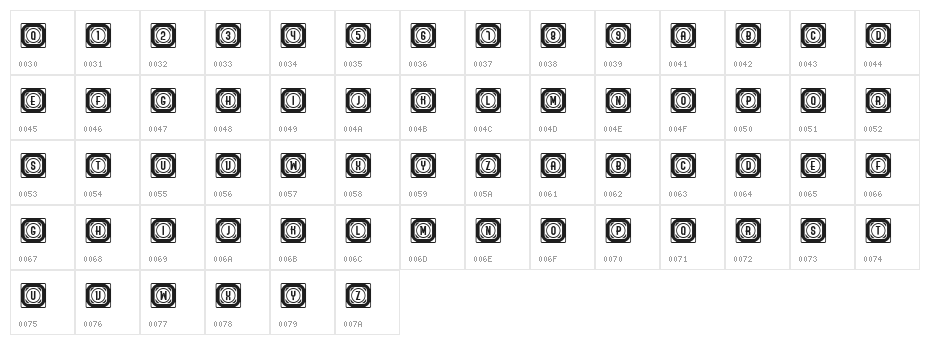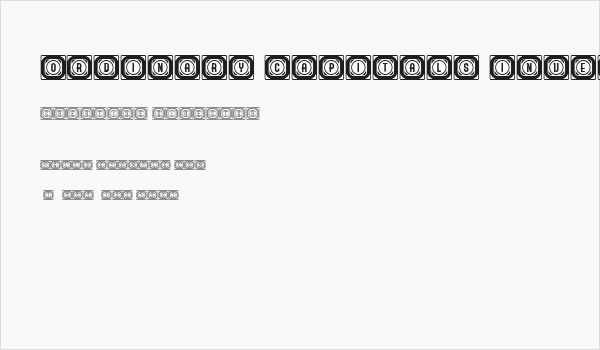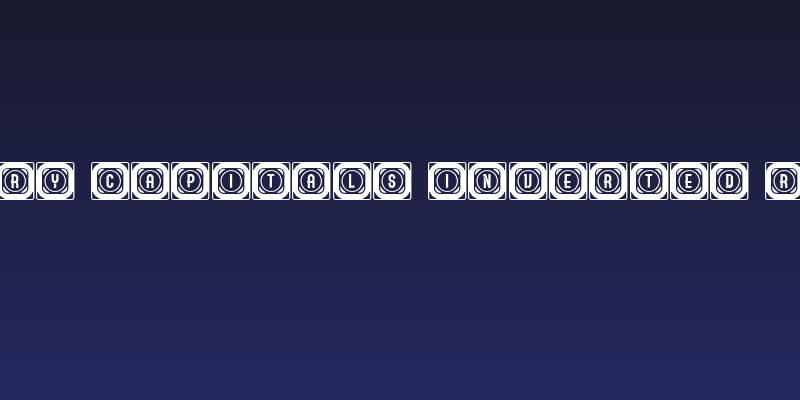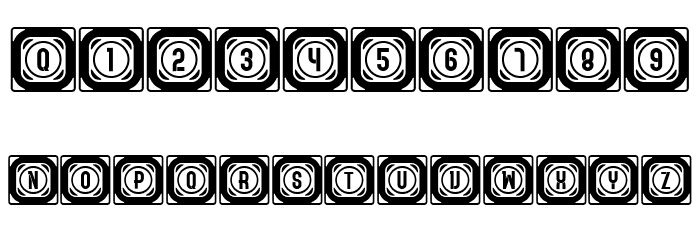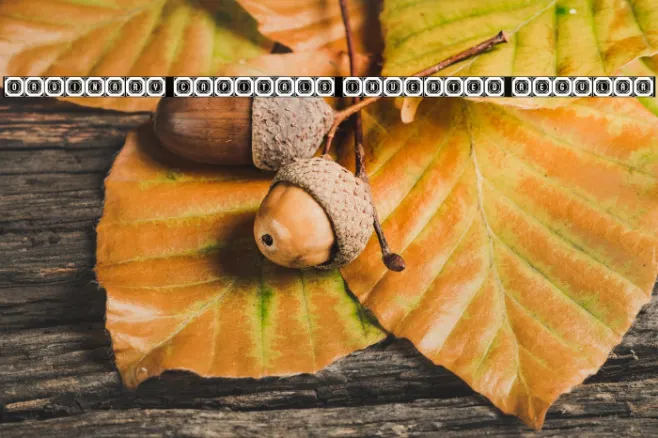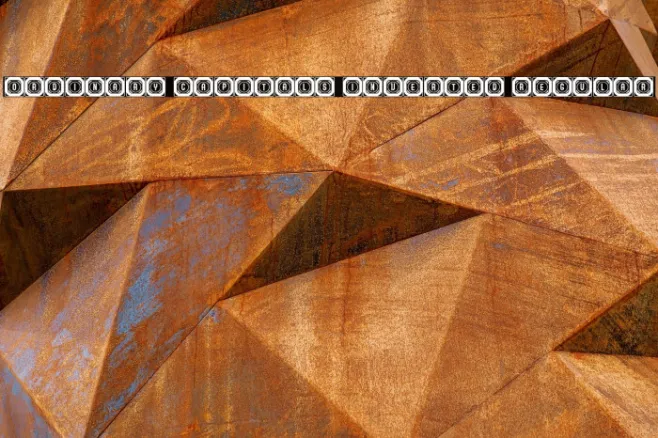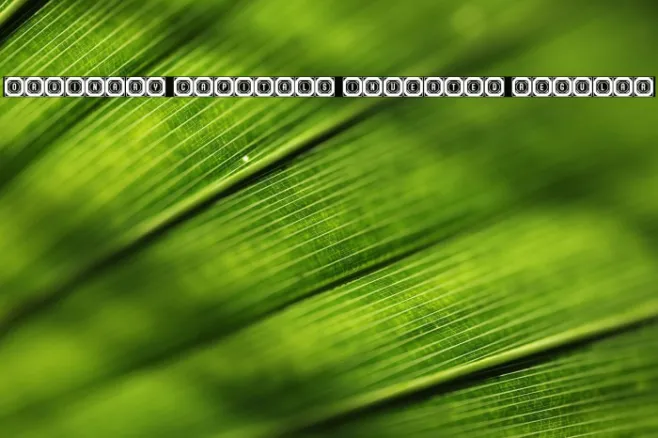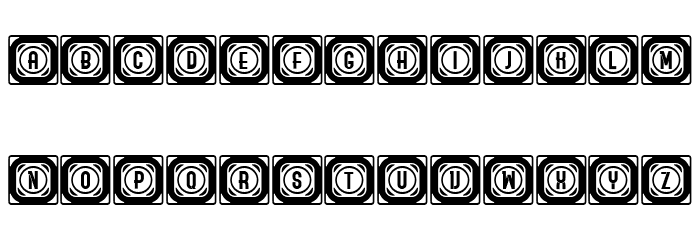
Ordinary Capitals Inverted Regular Font
Ordinary Capitals Inverted Regular Description
This font features a bold and striking design with each character enclosed in a square frame, creating a unique and eye-catching appearance. The letters are uppercase and have a geometric style, with clean lines and a modern aesthetic. The characters are centered within the frames, which adds a sense of balance and symmetry. The use of negative space within the frames enhances the visual impact, making each letter stand out distinctly. This font is ideal for projects that require a strong visual presence and a contemporary look.